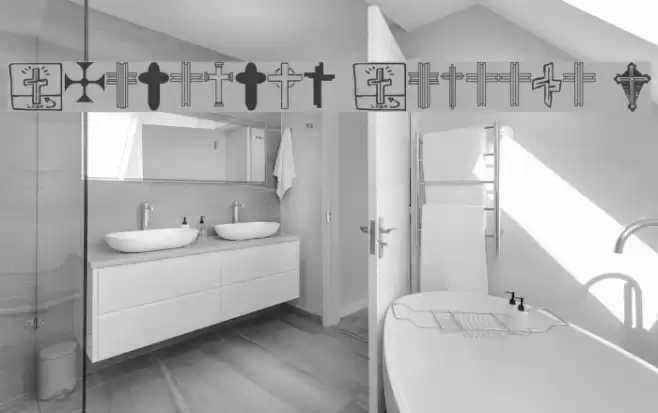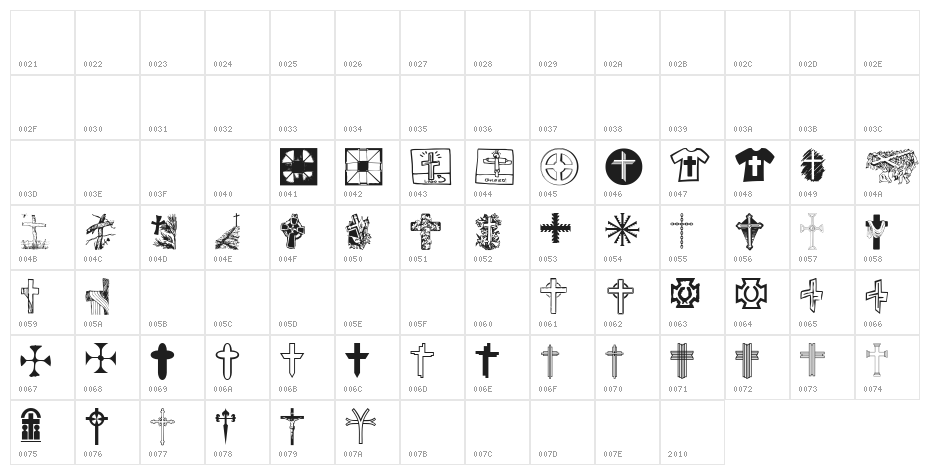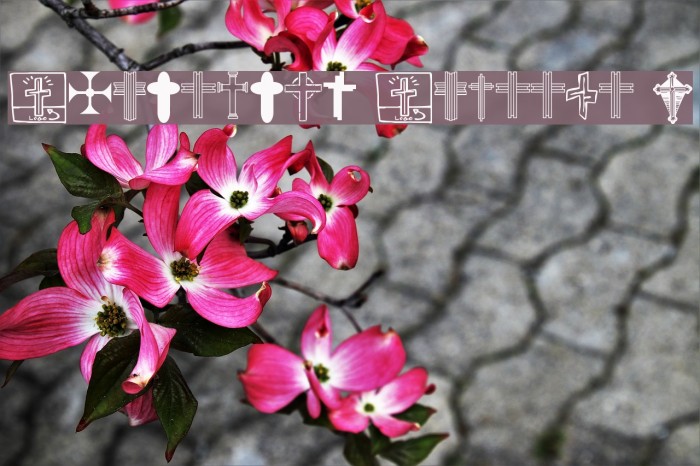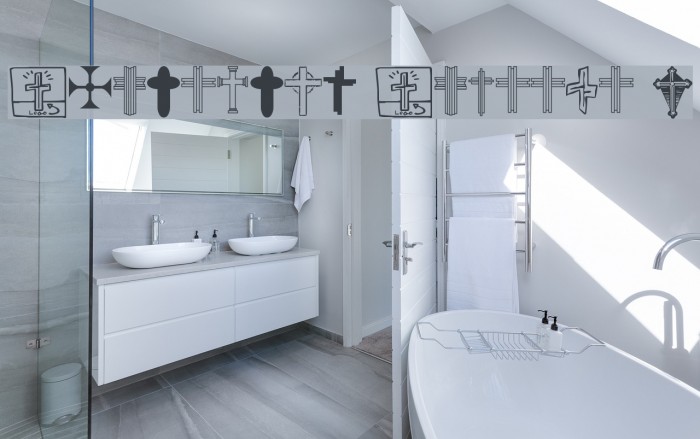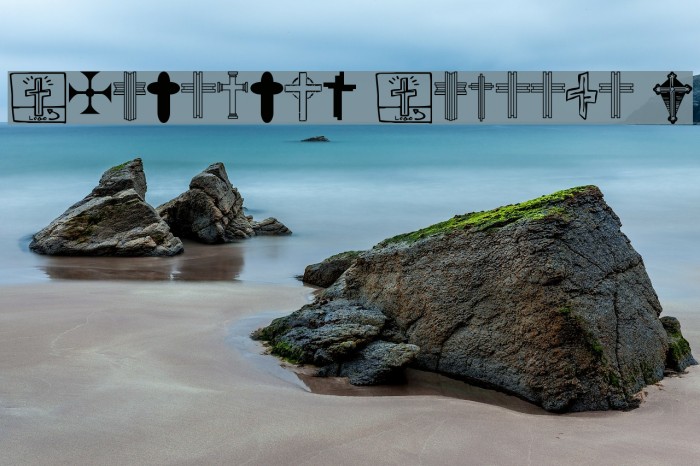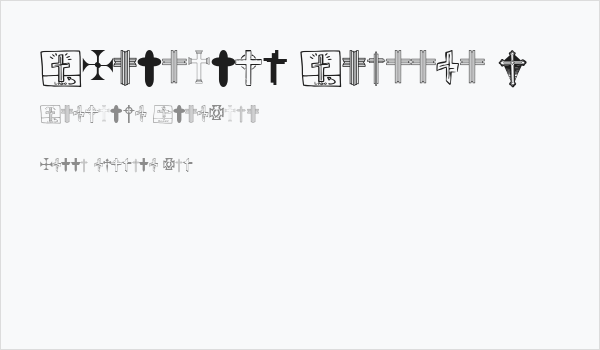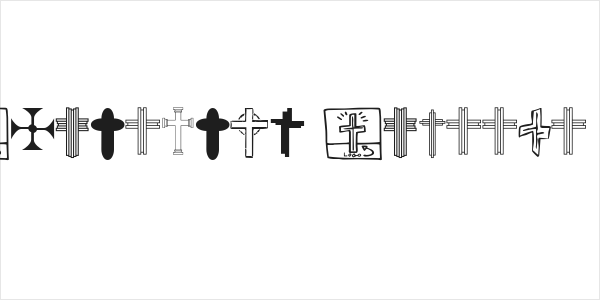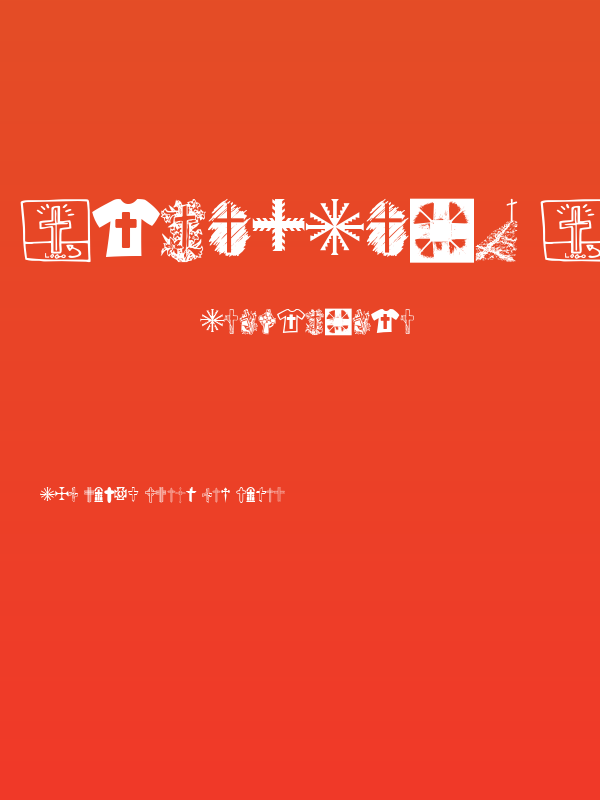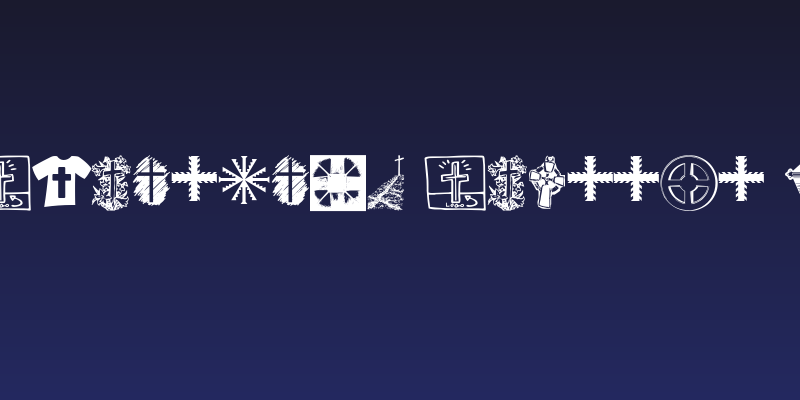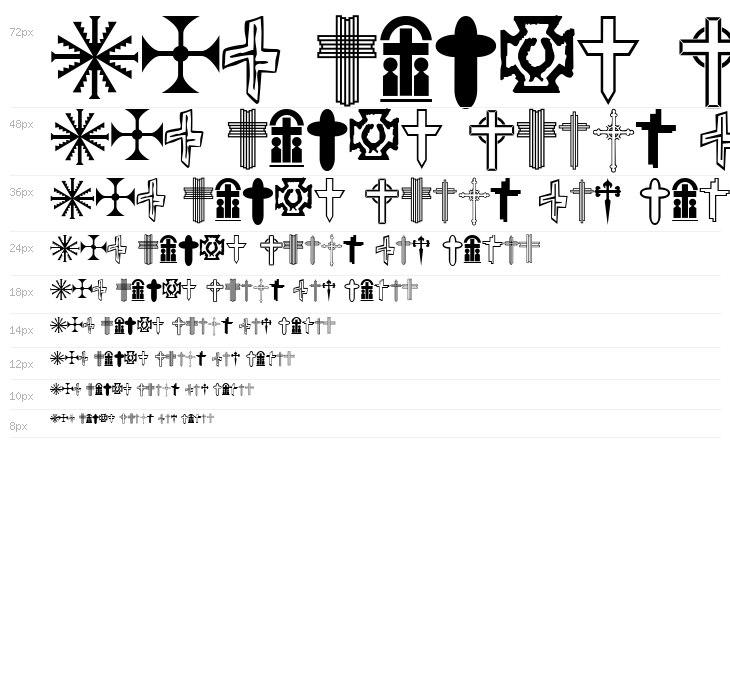
Christian Crosses V Font
Christian Crosses V Description
A decorative dingbat font featuring a wide variety of Christian cross symbols and religious iconography, each glyph uniquely illustrated with different styles, patterns, and details, ranging from simple geometric crosses to ornate and pictorial representations.
A symbol font with diverse Christian cross designs from Dingbats fonts.
- Proposed Projects: Religious event flyers, church bulletins, spiritual websites, decorative borders, educational materials on Christianity.
- Overall Style: Decorative, Religious, Thematic
- Use Case: Icons, Borders, Thematic Illustrations, Religious Graphics